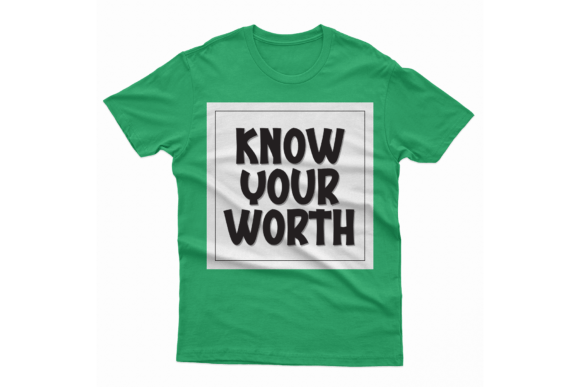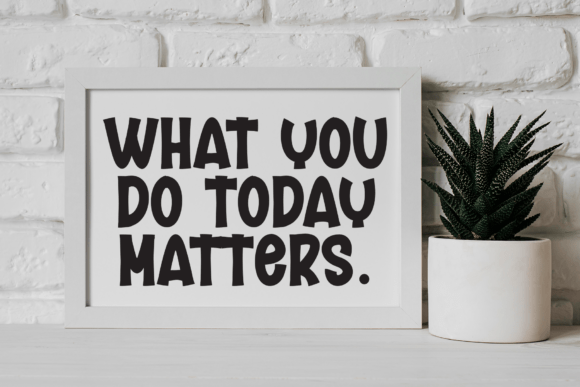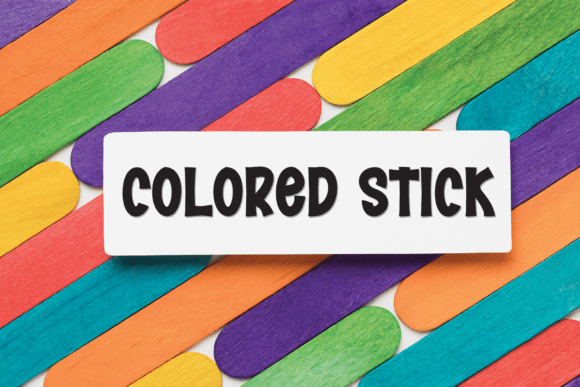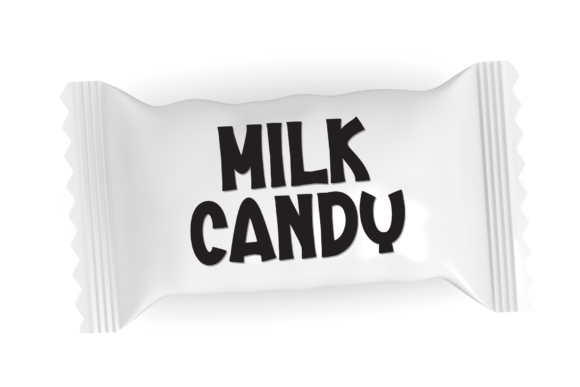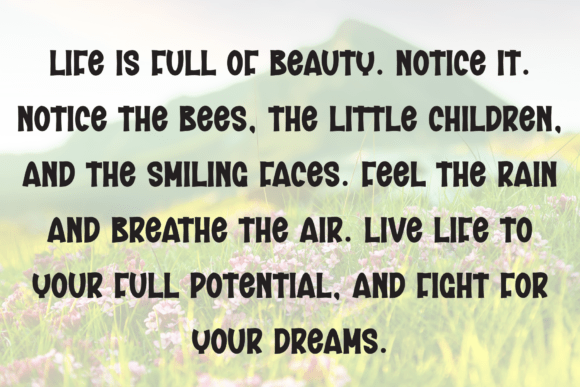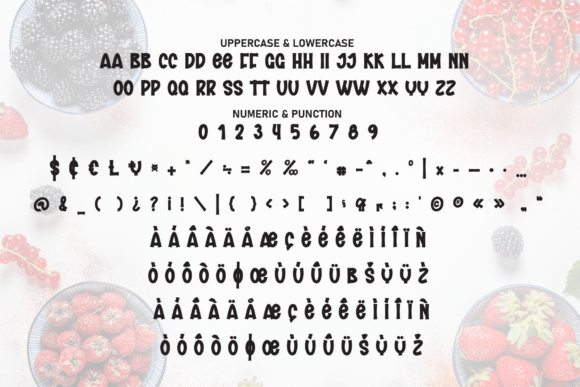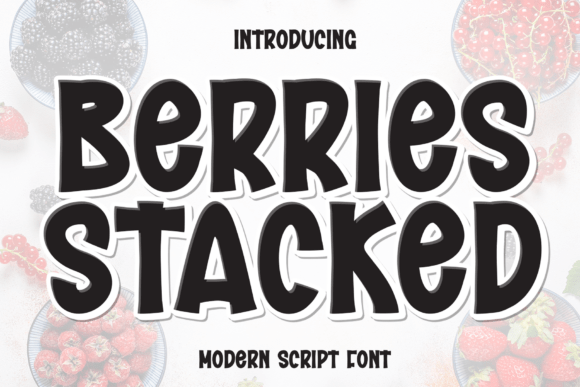
Introducing Berries Stacked Font: Elevate Your Designs with Whimsical Charm
Are you on the hunt for a display font that exudes a sense of serenity and soft cosiness? Look no further than Berries Stacked Font, a meticulously crafted typeface designed to infuse your masterpieces with an animated spontaneity. Handmade with precision, this font is tailored explicitly for creating breathtaking wedding invites, commemorative cards, and other artistic endeavors that demand a dash of charming distinctiveness.
The Allure of Berries Stacked Font
Berries Stacked Font boasts a unique, handmade quality that sets it apart from other display fonts. Its calming serenity and soft cosiness evoke a sense of whimsy, making it perfect for designers and crafters seeking to add a touch of magic to their work. Whether you’re creating wedding invitations, greeting cards, or other paper crafts, this font is sure to kindle a burst of joy and cheer in your artistic pursuits.
Crafted with Precision and Passion
Berries Stacked Font is a true craftsman’s marvel, carefully designed to deliver a charismatic pull that captivates audiences. The font’s creator has poured their heart and soul into crafting a typeface that is not only visually stunning but also versatile and easy to use. With Berries Stacked Font, you can add a touch of sophistication and elegance to your designs, making them truly unforgettable.
Ideal for Wedding Invites and Commemorative Cards
Berries Stacked Font is specifically designed for creating beautiful wedding invites and commemorative cards. Its soft, rounded edges and whimsical charm make it perfect for capturing the romance and joy of special occasions. Whether you’re a designer or crafter, this font is an indispensable asset that will help you create stunning paper crafts that leave a lasting impression.
Key Features of Berries Stacked Font
• Handmade with precision: Each letter has been carefully crafted to ensure a unique, human touch.
• Calming serenity and soft cosiness: Evokes a sense of whimsy and magic in your designs.
• Animated spontaneity: Adds a touch of playfulness and energy to your masterpieces.
• Charming distinctiveness: Sets your designs apart from the crowd with its unique character.
• Versatile and easy to use: Perfect for a wide range of design applications, from wedding invites to paper crafts.
Tips for Using Berries Stacked Font
To get the most out of Berries Stacked Font, here are a few tips to keep in mind:
• Pair with complementary fonts: Combine Berries Stacked Font with other fonts to create visually striking headings and body text.
• Experiment with colors and textures: Add depth and interest to your designs by incorporating different colors and textures.
• Play with layout and composition: Don’t be afraid to try out different layouts and compositions to create a unique look.
Berries Stacked Font is a true gem in the world of display fonts. Its enchanting allure, meticulous design, and charming distinctiveness make it an indispensable asset for designers and crafters seeking to elevate their work. Whether you’re creating wedding invites, commemorative cards, or other artistic endeavors, this font is sure to kindle a burst of joy and cheer in your creative pursuits. So why wait? Download Berries Stacked Font today and experience the magic for yourself!